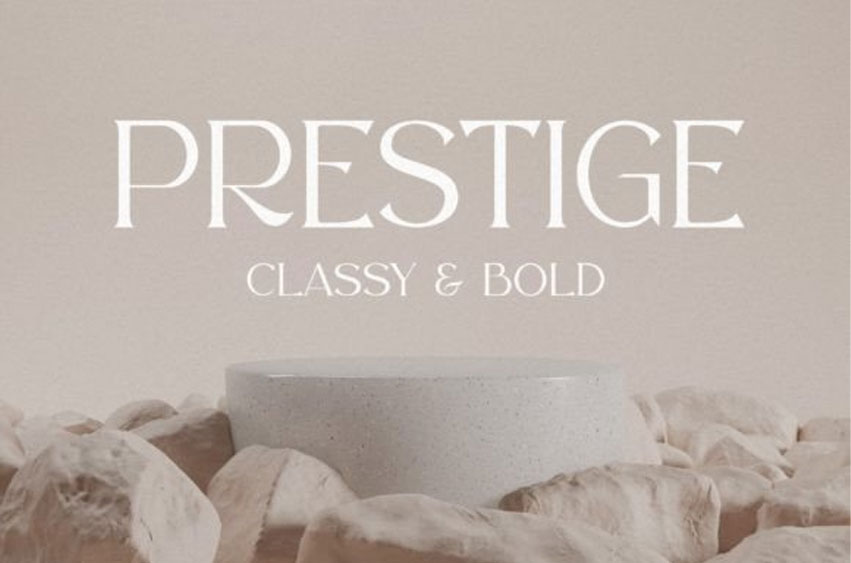
Prestige Classy Font
Prestige Classy Font is an all-caps serif typeface. This font was specifically designed for use in classy, bold, and simple projects.
The font is perfectly suitable for creating elegant logos, posters, editorials, packaging, social media banners or covers, and much more. Mix and match upper and lowercase letters to create gorgeous outcomes. Enjoy!